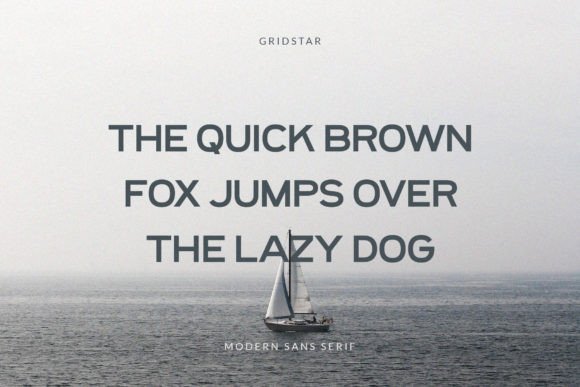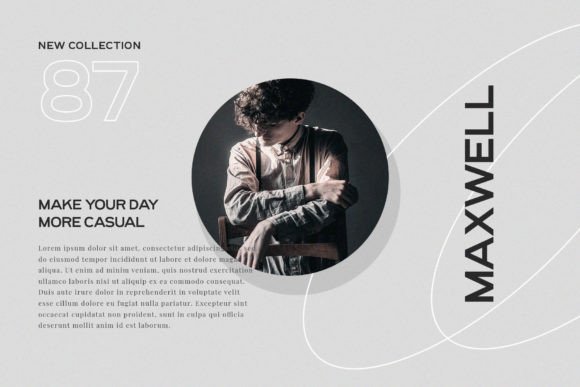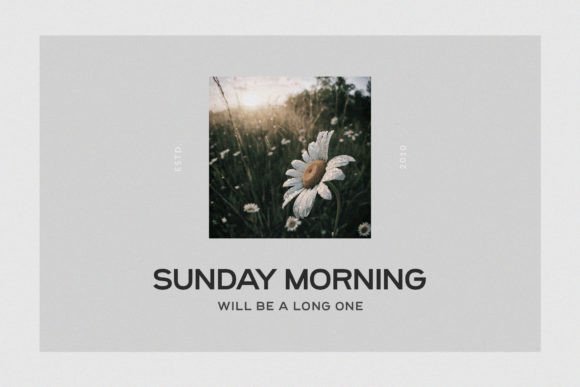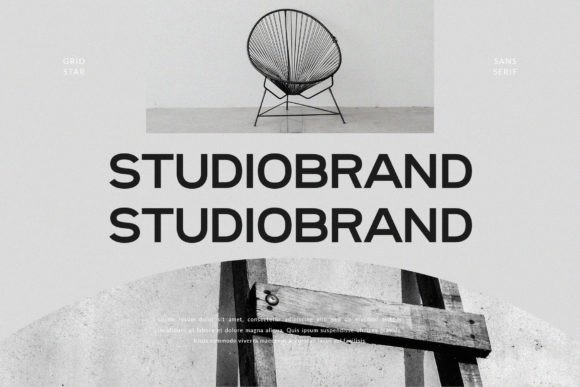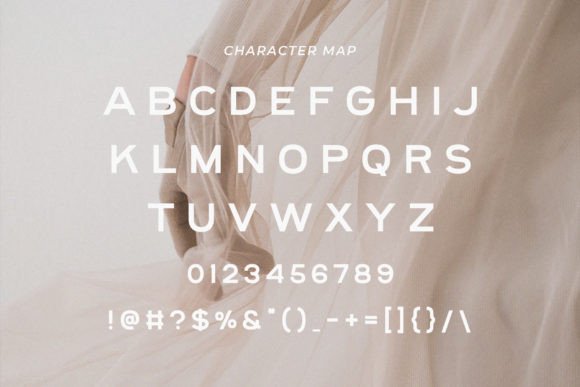
Introduction to Gridstar Font
Gridstar is a classy and neat sans serif font masterfully designed to become a true favorite.
Key Features of Gridstar Font
Why Choose Gridstar Font?
Gridstar Font offers exceptional quality and versatility, making it a valuable addition to your design toolkit. Whether you’re creating for personal projects or commercial use, Gridstar Font delivers professional results.